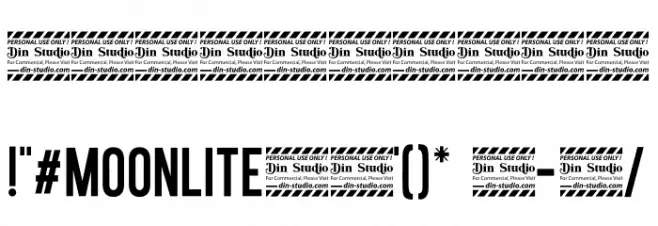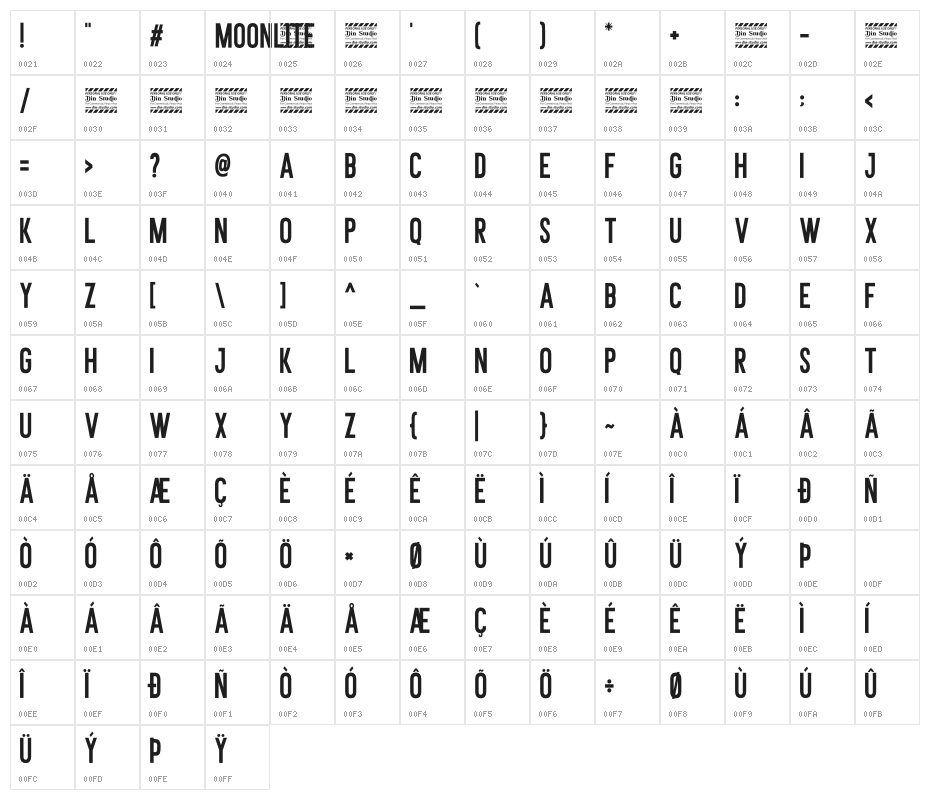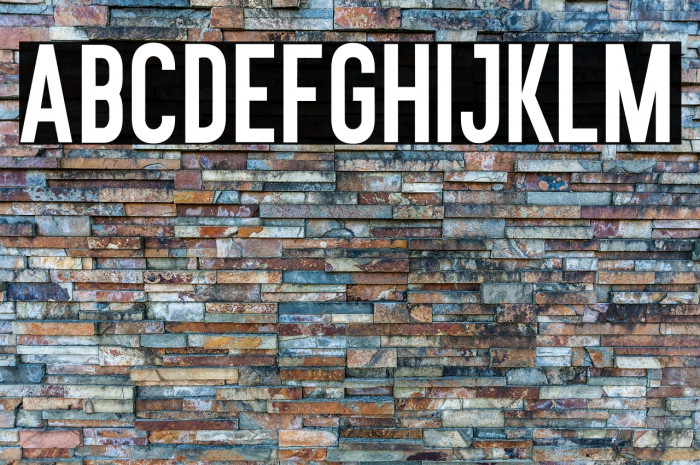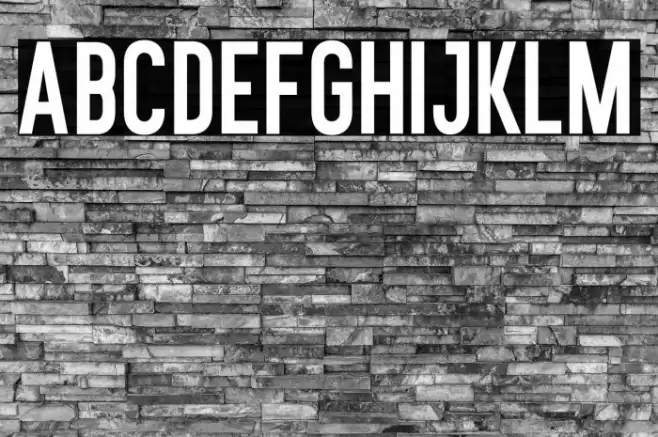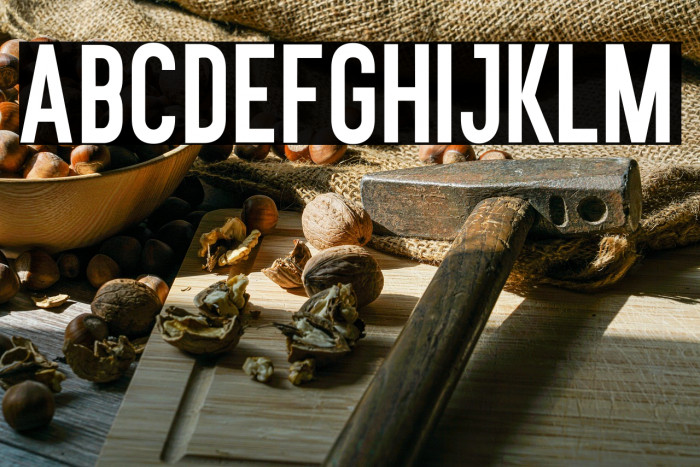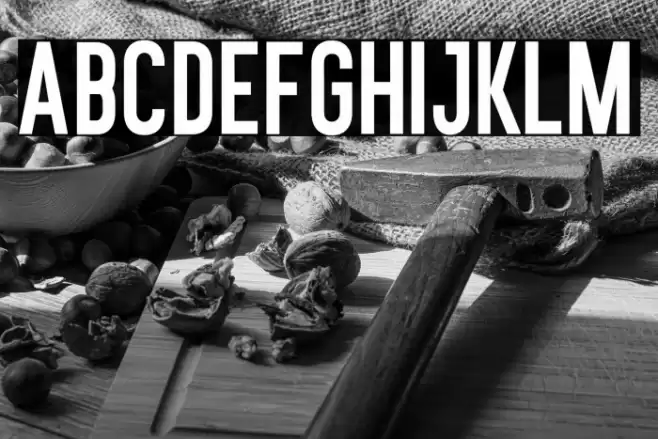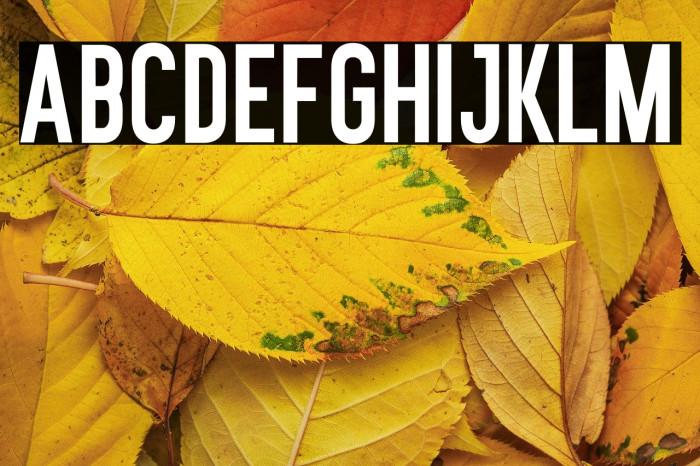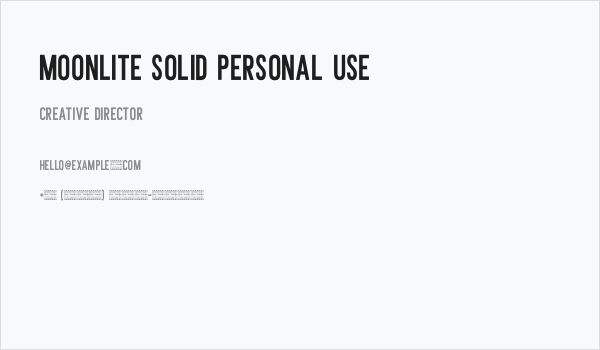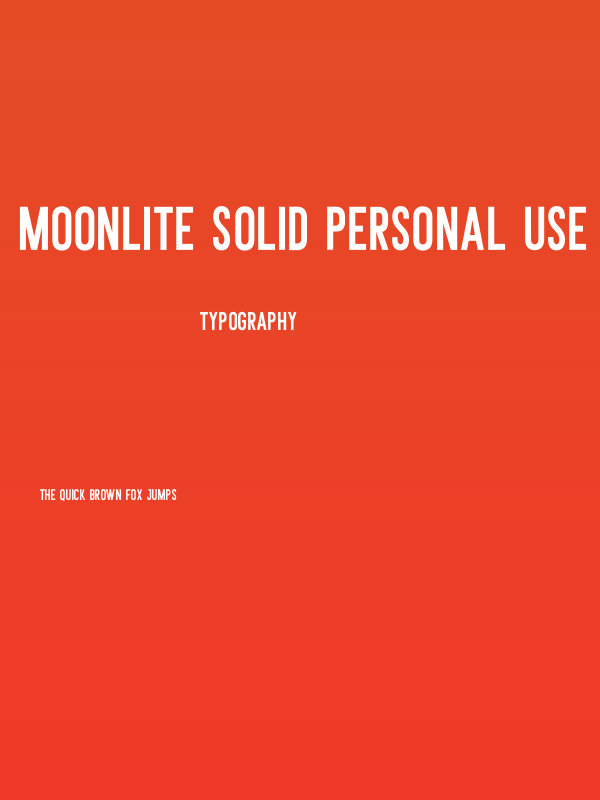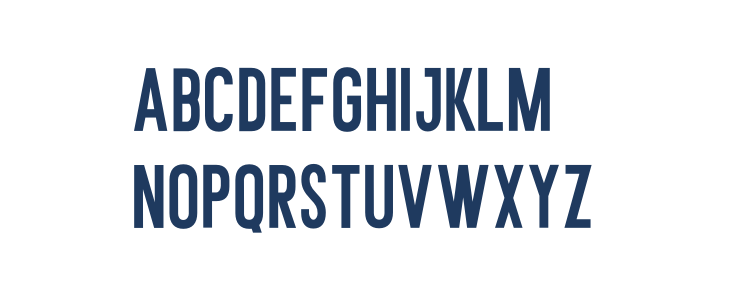
Moonlite Solid Personal Use Font
Moonlite Solid Personal Use Description
This font features a bold and impactful design with strong, clean lines and a modern aesthetic. The uppercase letters are tall and narrow, giving a condensed appearance that is both striking and legible. The lowercase letters maintain a consistent style, complementing the uppercase with a similar condensed form. The numerals are clear and straightforward, matching the overall boldness of the typeface. Special characters are included, maintaining the same robust and modern feel. This font is ideal for making a statement, with its high contrast and solid presence.
| Proposed Projects | Ideal for headlines, posters, branding, and any project requiring a strong visual impact. |